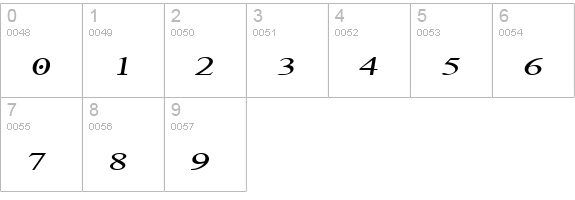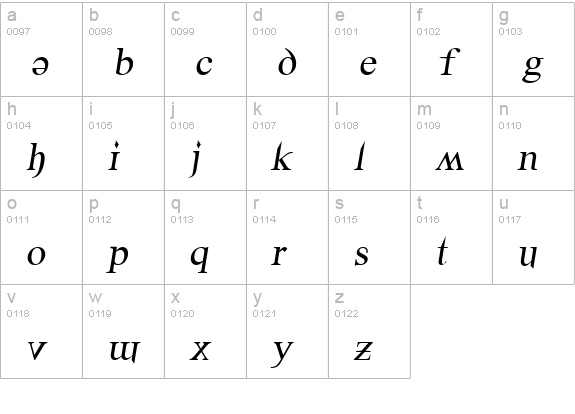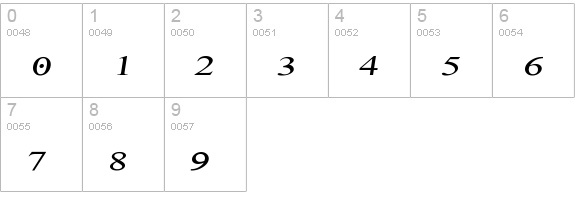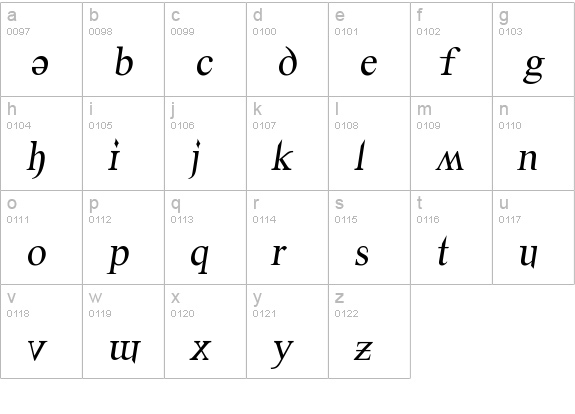
Denial2RegularItalics Font Details
Denial2RegularItalics font is a stylish and versatile typeface that adds a touch of elegance to any design project. Its slanted and sleek appearance makes it perfect for creating eye-catching headings, titles, and quotes. The italicized characters bring a sense of sophistication and modernity to your text, making it stand out from the crowd. This font is not only visually appealing but also highly readable, making it suitable for a wide range of applications such as branding, advertising, packaging, and more. Whether you're designing a website, poster, or logo, Denial2RegularItalics font is sure to make a bold statement. Best of all, Denial2RegularItalics font is completely free to download at FontsMarket.com. Don't miss out on this fantastic opportunity to enhance your design projects with this elegant and modern typeface. Download it today and take your designs to the next level!